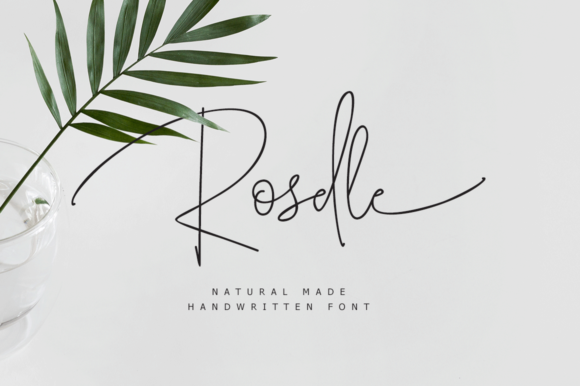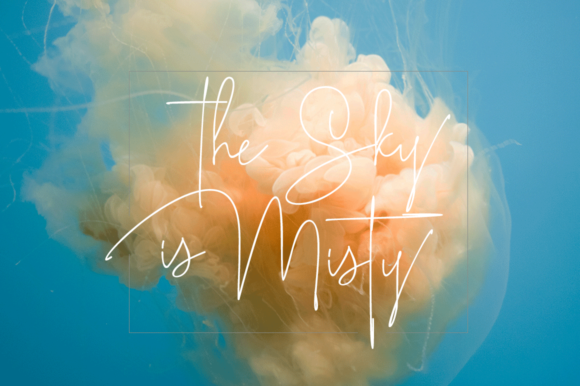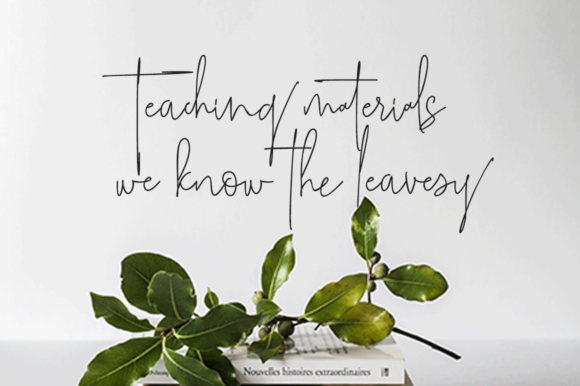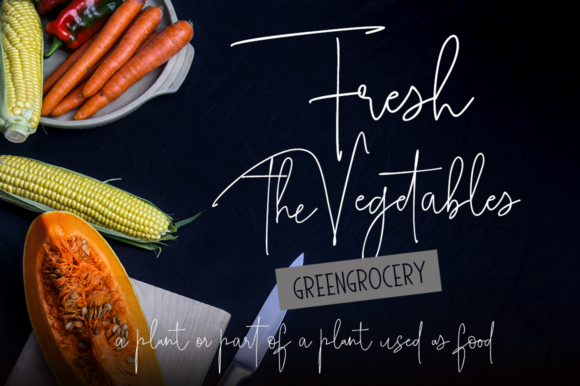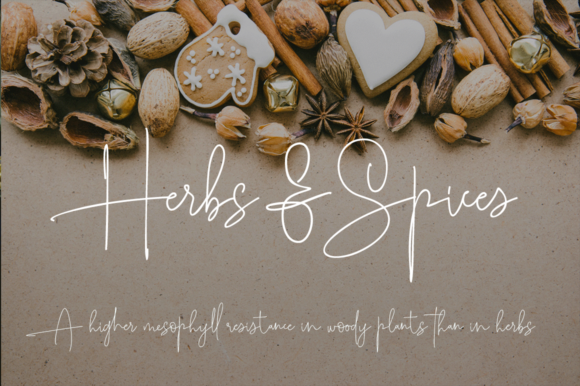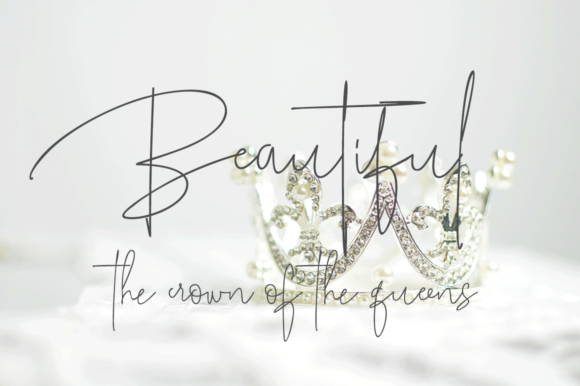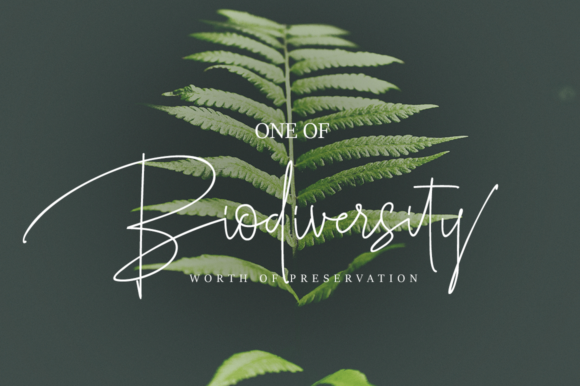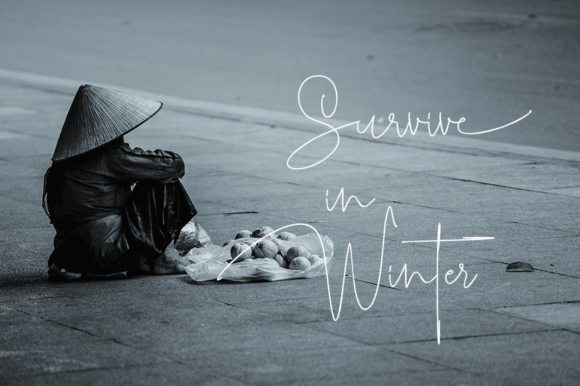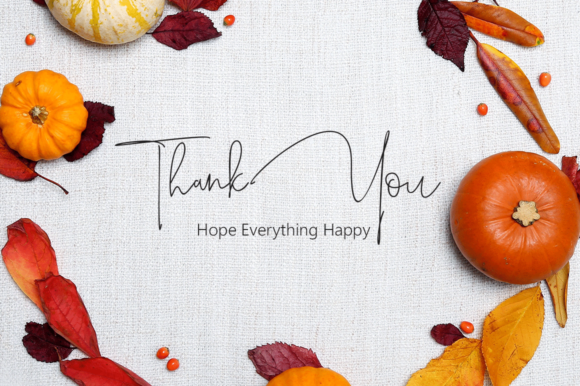
HomeScript FontsRoselle Font Script Fonts Roselle Font FacebookXPinterestWhatsApp Roselle Font Poster 2 Roselle Font Poster 3 Roselle Font Poster 4 Roselle Font Poster 5 Roselle Font Poster 6 Roselle Font Poster 7 Roselle Font Poster 8 Roselle Font Poster 9 About Roselle Font The Roselle is an beautiful handwritten script. It will add a natural and elegant feel to your designs. DOWNLOAD NOW People also explored Bramble Princess Font Happy Holiday Font Amy Riyas – Textured Brush Font Way to the Heart Duo Font Hiselo Font Reulvone Font Hunthing Font Summer Mandala Font Blue Pastel Font 326 0 TagsRoselle Font Previous articleAkayla Script FontNext articleMerry Hamida Font LEAVE A REPLY Cancel reply Comment: Please enter your comment! Name:* Please enter your name here Email:* You have entered an incorrect email address! Please enter your email address here Website: Save my name, email, and website in this browser for the next time I comment. Personal Use Free Adeline Personal Use Free Read more about this font Namskow Personal Use Free Read more about this font Cataleya Personal Use Free Read more about this font Knox Personal Use Free Read more about this font BLOG Exploring Font Trends Shaping Communication in the Digital Era Fonts, like all design elements, are subject to trends. They play a crucial role in communicating a brand's personality,... Fonts That Capture the Spirit of New York City Modern Sans-Serif Fonts That Brands Love in 2025 Transform Your Website: Elevate Your Typography with 7 Best Web Font Generators